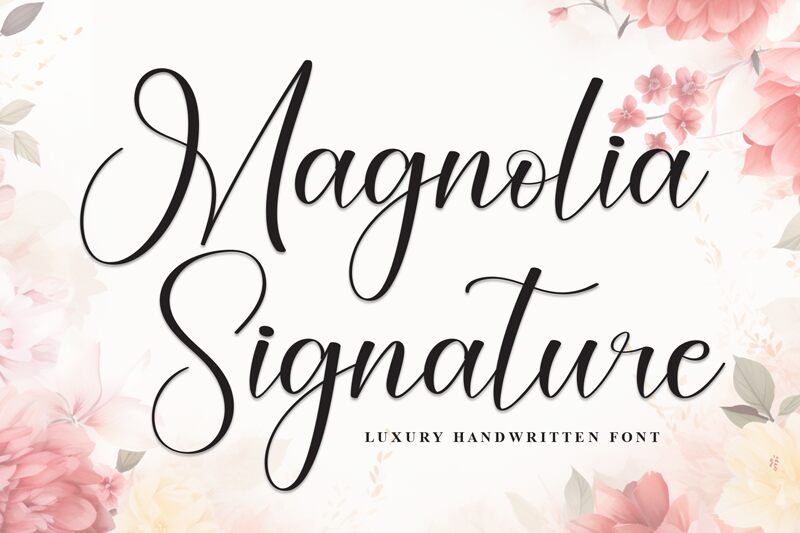
Magnolia Signature font
Our free font collection offers special creative products that provide an extraordinary experience. The latest style letters are perfect for various applications, including wall displays, wedding invitations, social media logos, advertisements, product packaging, labels, photography, watermarks, stationery, and any project that requires elegant handwriting.